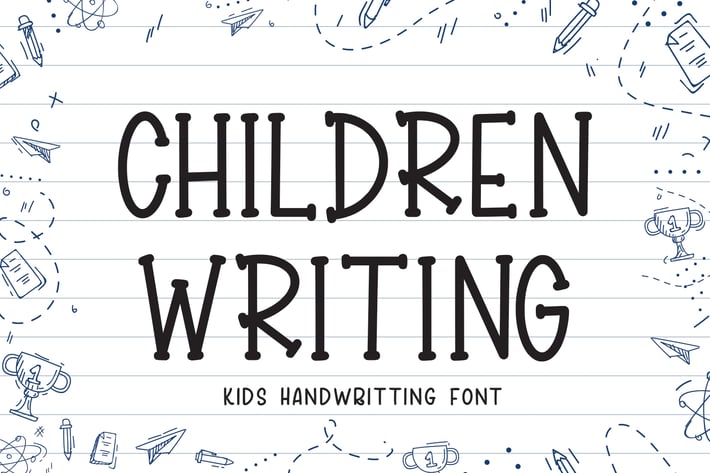
Children Writing - Kids Font
Introducing Children Writing, the ultimate cute and fun display font designed to add a playful touch to all your creative projects! Perfect for food-themed designs, children's writing, and festive crafts, this font brings a delightful and whimsical feel to your work. Whether you're preparing Easter decorations, Thanksgiving cards, or Christmas crafts, Children Writing will make your designs stand out with its charming and friendly characters. Ideal for Cricut, embroidery, and SVG projects, this font is your go-to choice for all things cute and fun.
Imagine the joy of crafting with Children Writing! Its adorable and cheerful style is perfect for adding a special flair to your lettering and DIY projects. Create enchanting holiday ornaments, personalized gifts, and eye-catching decorations that will leave a lasting impression. This versatile font is a must-have for anyone looking to infuse their designs with a touch of cuteness and creativity.